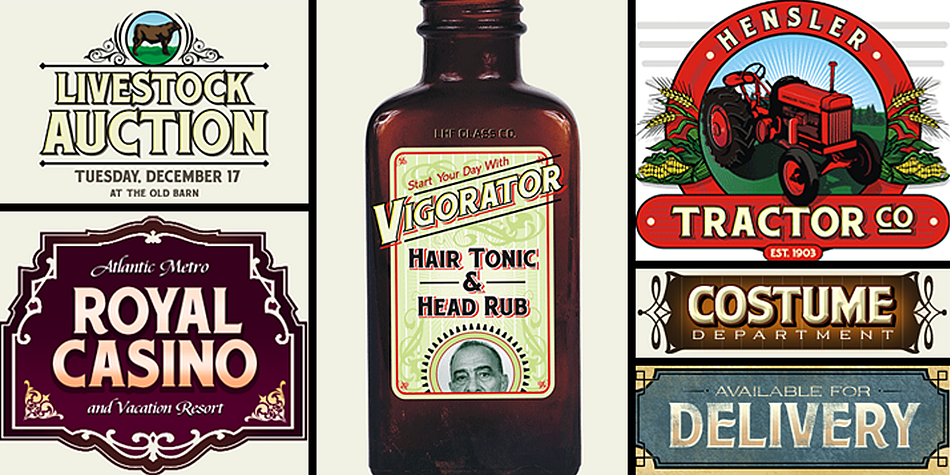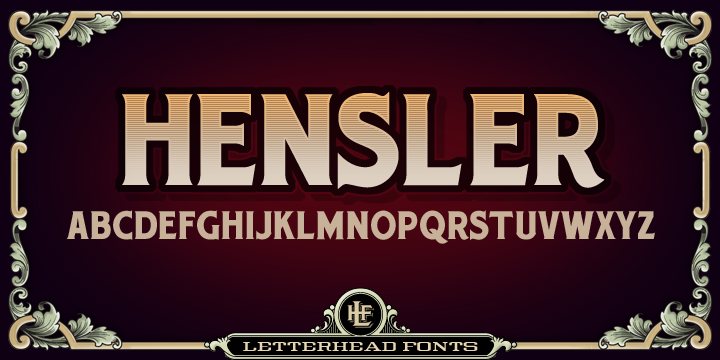
Designed by Chuck Davis, LHF Hensler is a serif and display serif font published by Letterhead Fonts.
Unusual square style. Suprisingly easy to read even at small sizes.